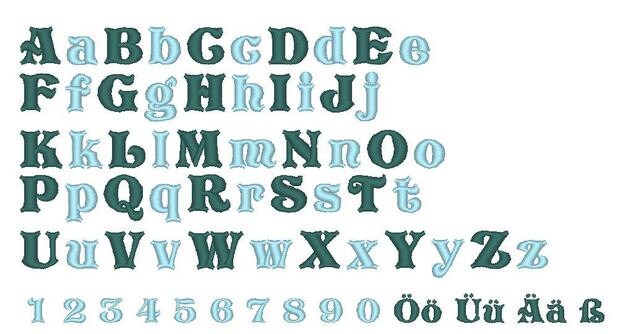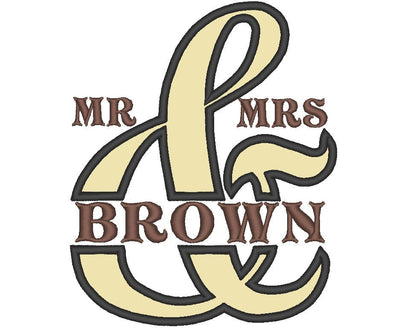
The small alphabet has upper and lower case letters
0.5"- for any other needs in your project, for example date of wedding or other
0.7" - for Ampersand applique in size 4" (will nicely fit in hoop 4x4)
0.8" - for Ampersand applique in size 5" and 6" (for hoop 5x7)